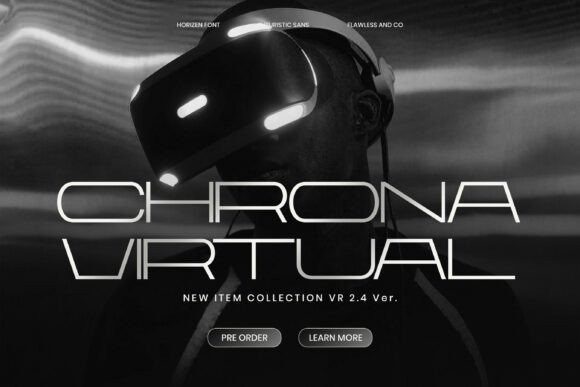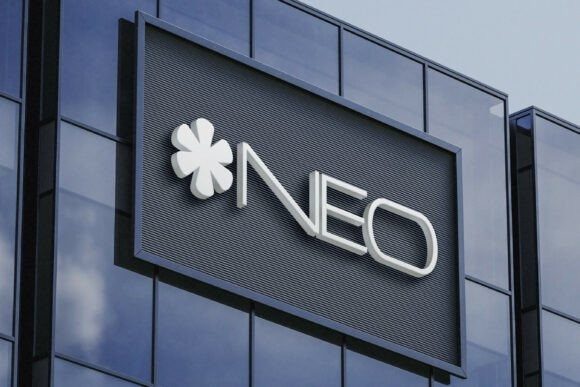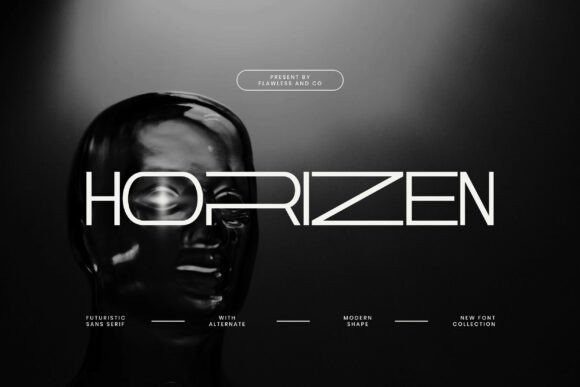
Horizen Font
Horizen Font is a futuristic sans-serif font that embodies modern innovation and sleek precision. Designed with sharp geometry and refined spacing, Horizen delivers a bold visual identity that feels cutting-edge and forward-thinking. Its clean lines and distinctive alternate forms bring a sense of technology, progress, and minimal sophistication—making it perfect for projects that demand a futuristic aesthetic. Ideal for modern branding, digital interfaces, and high-tech logo designs.